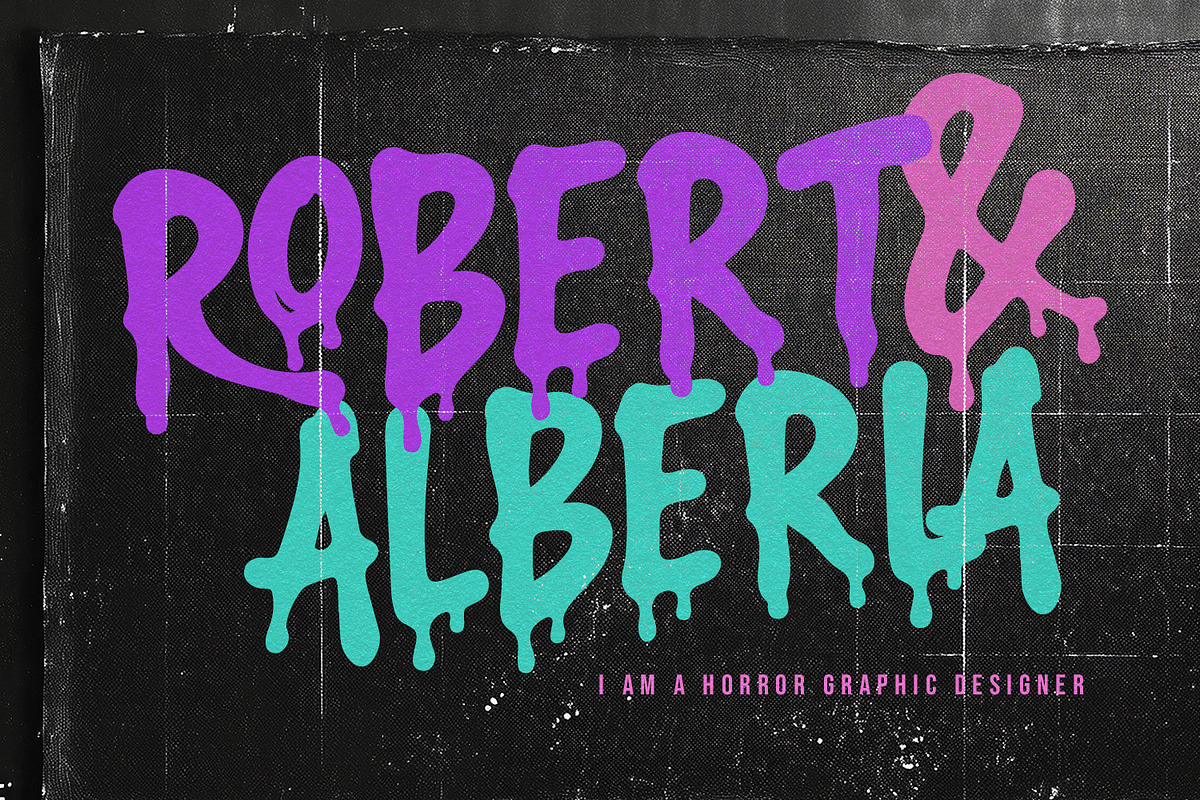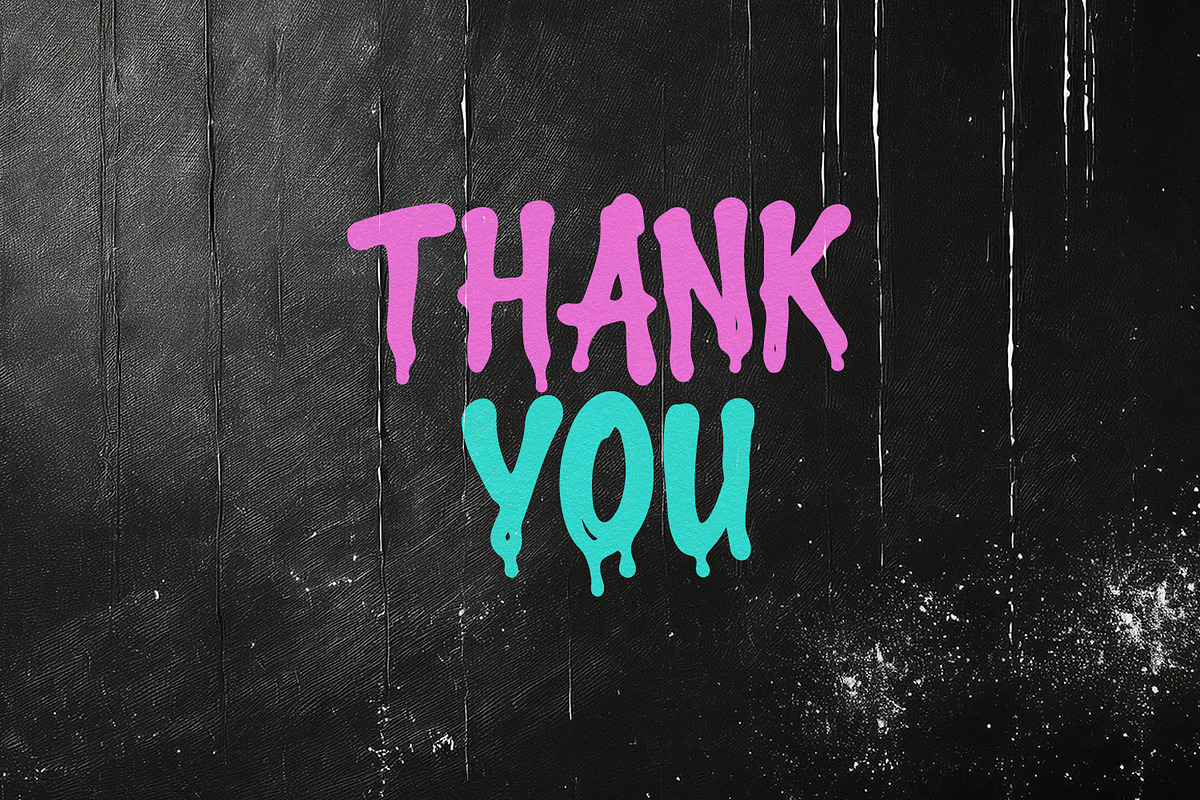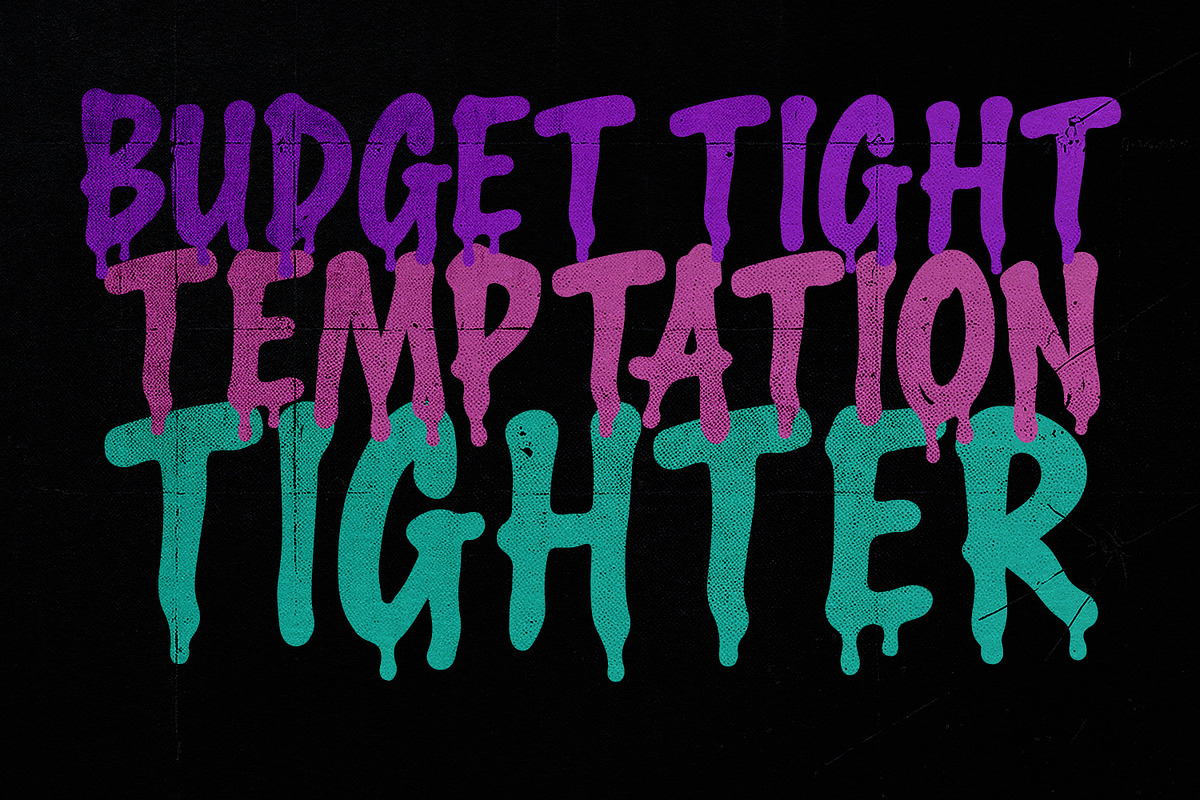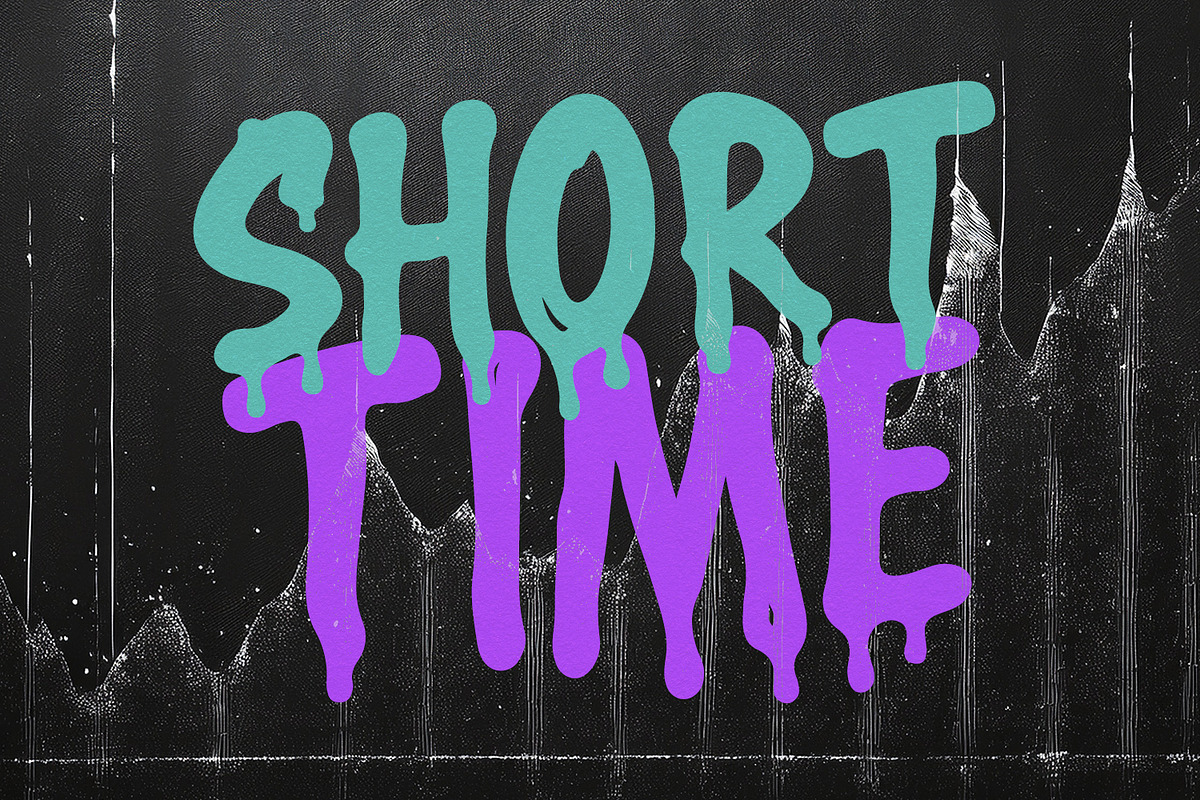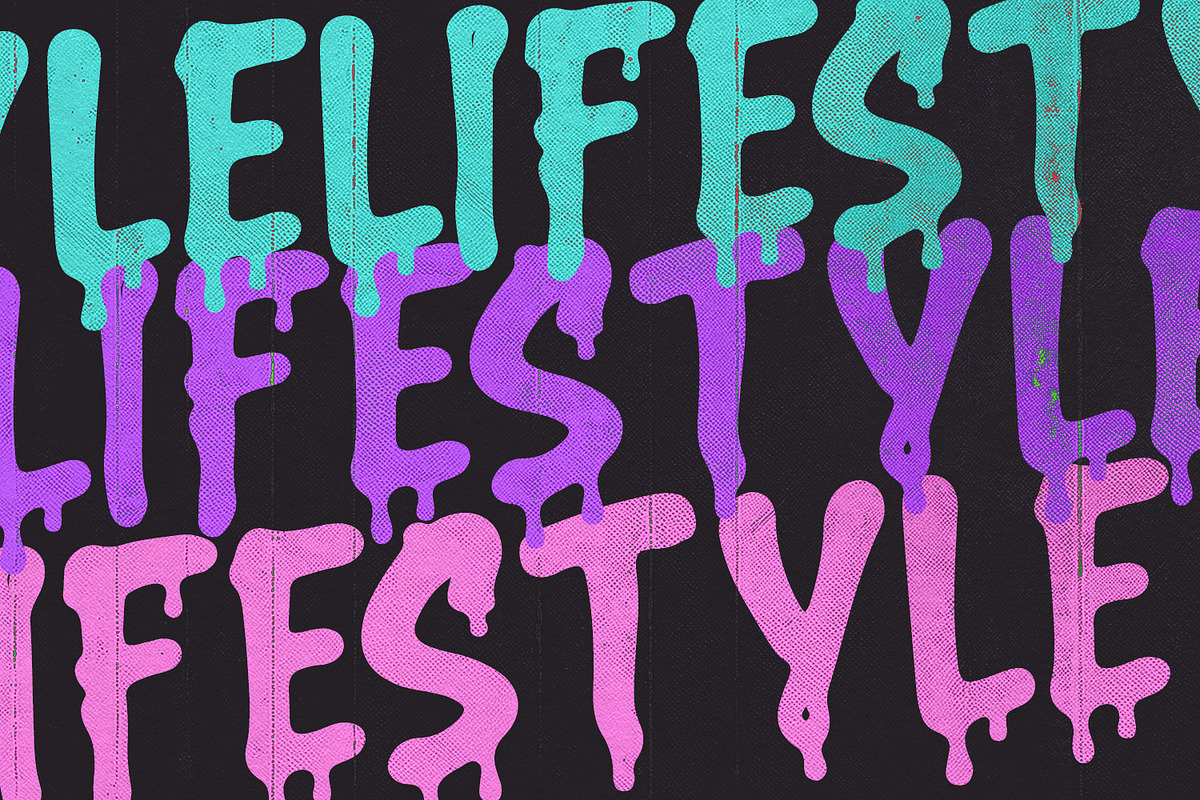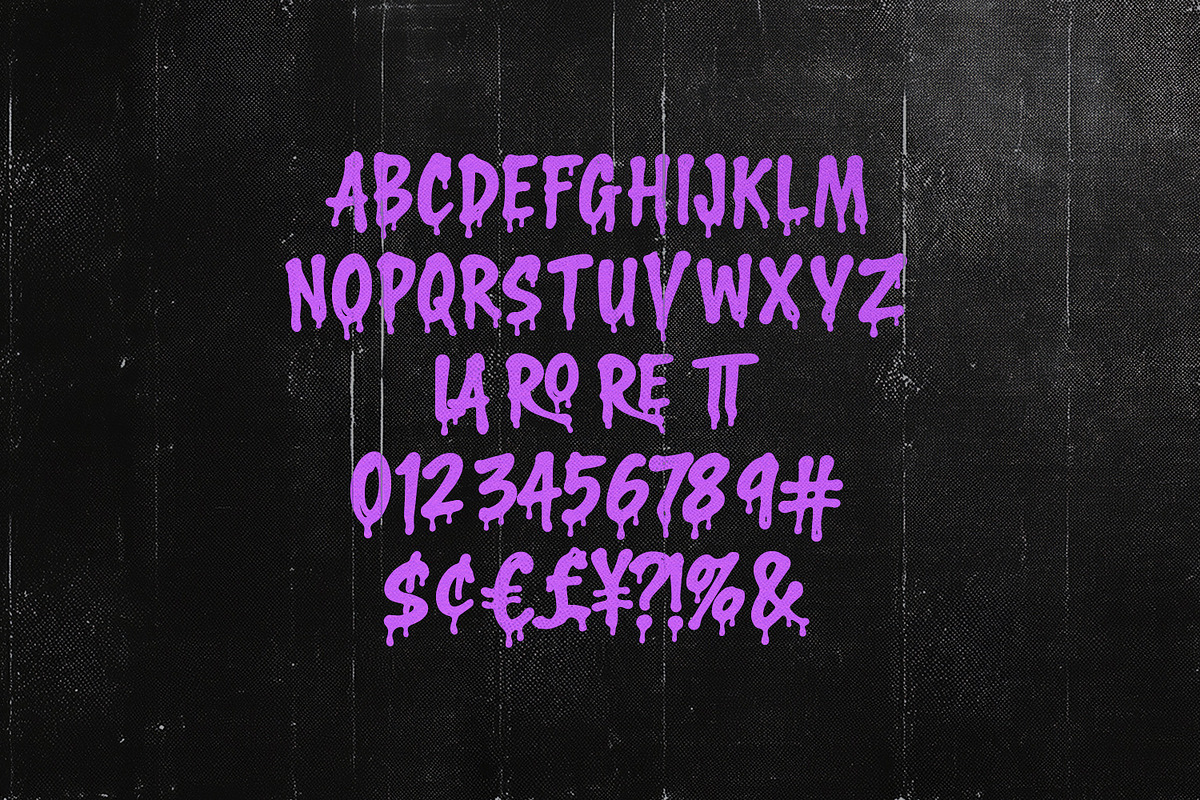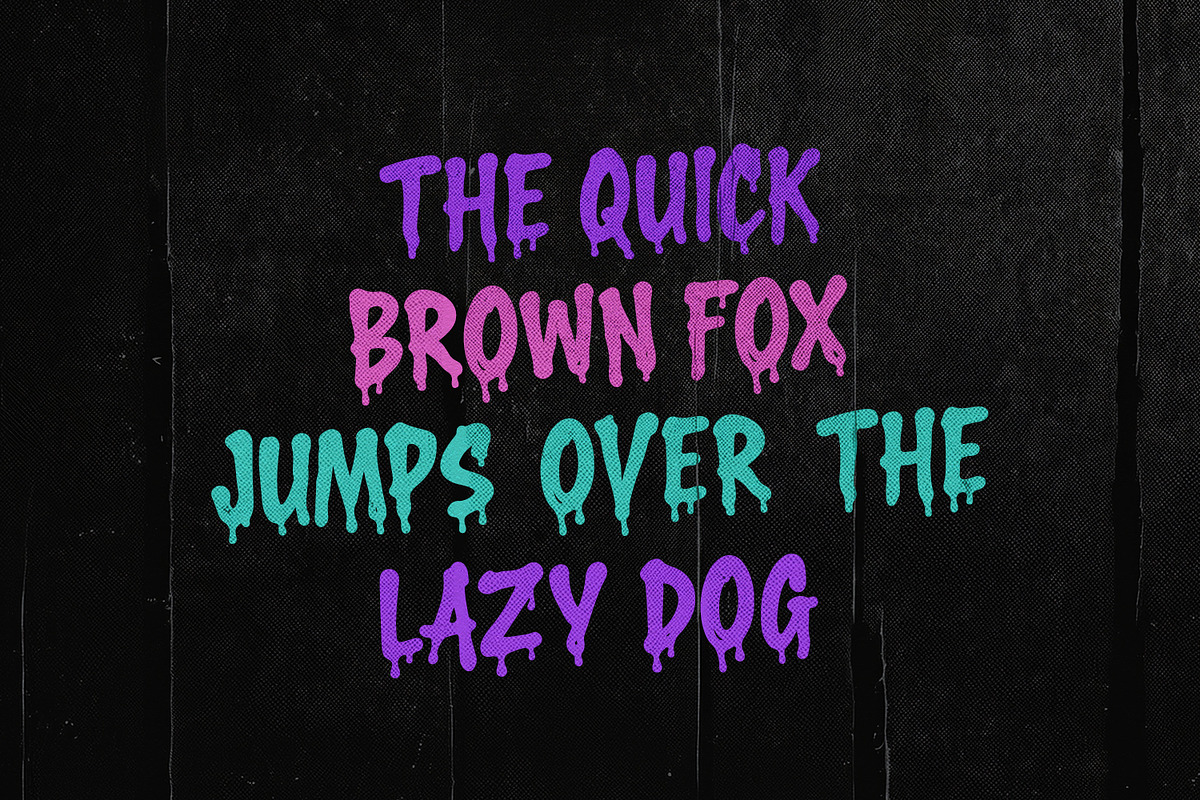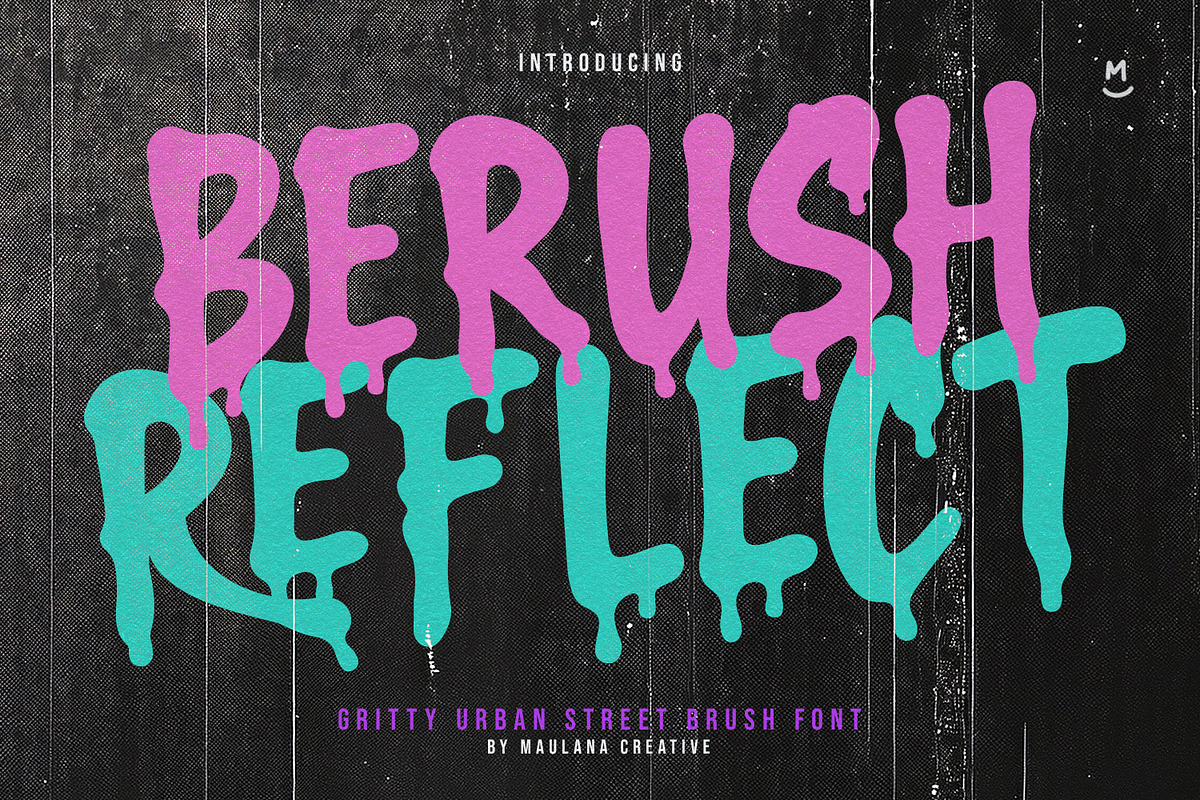
Berush Reflect Gritty Urban Brush
Berush Reflect is a raw, high-impact brush font designed to capture the rebellious spirit of urban street art. Featuring a "dripping paint" effect and bold, hand-lettered strokes, this typeface brings a gritty, underground vibe to any project. Its textured edges and liquid-like terminals make it perfect for horror-themed graphics, edgy streetwear branding, music posters, and modern graffiti displays. Whether you are aiming for a spooky aesthetic or a loud street-style statement, Berush Reflect delivers a powerful, unpolished look that demands attention.
- Full character set
- Numbers, Punctuation, and Symbols
- Ligatures for a natural handwriting flow